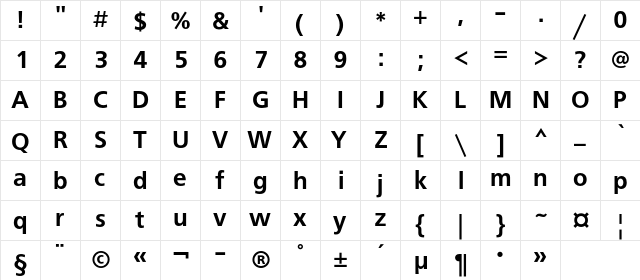
FreeSetC Bold
Design Context for FreeSetC Typeface
FreeSetC takes a measured approach to typography — its balanced proportions and neutral character make it a reliable workhorse for both digital and print work. Its bold stroke weight gives it real presence on the page.
Pro Tip: Pair FreeSetC with a font of contrasting weight or personality to build a more expressive typographic hierarchy.